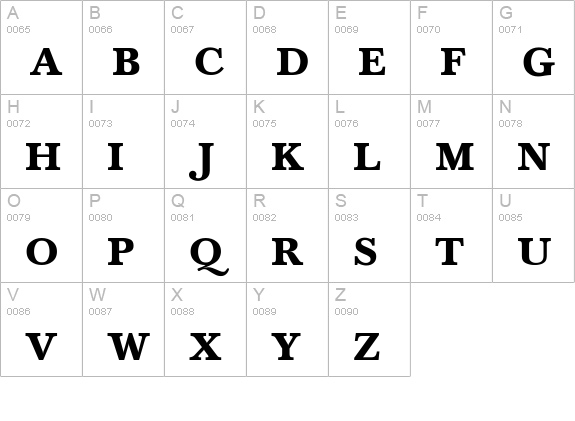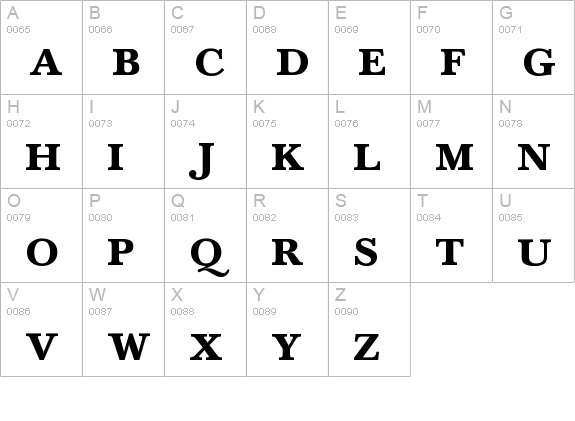
NewBaskerville is a timeless and elegant serif font that exudes sophistication and classic charm. Its graceful curves and delicate serifs make it a perfect choice for any project that requires a touch of refinement and elegance. Whether you are designing a wedding invitation, a formal document, or a vintage-inspired logo, NewBaskerville will add a touch of class to your work. The best part is that NewBaskerville is available for free download at FontsMarket.com. This means that you can easily add this beautiful font to your collection without any cost. With its versatile design and high legibility, NewBaskerville is a must-have font for designers who appreciate quality typography. Download NewBaskerville today and elevate your designs with this exquisite typeface.